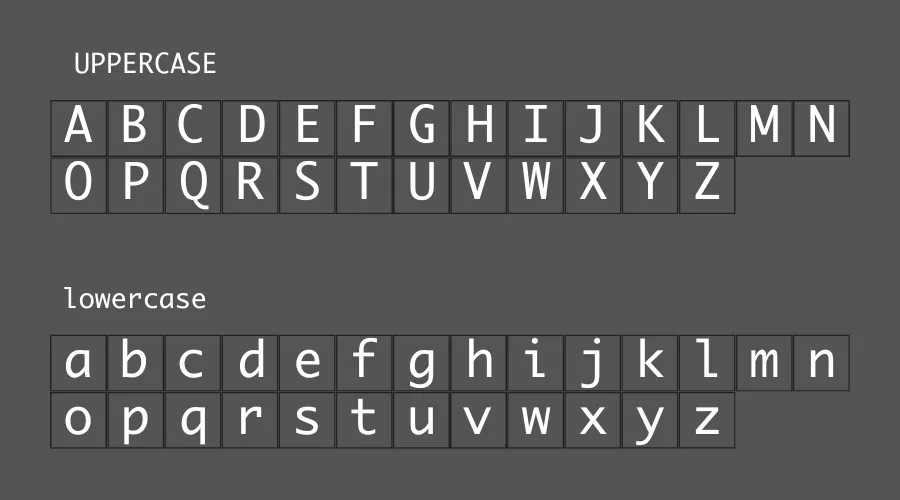
Monaco Font
About Monaco Font
Monaco Font Along with numbers, capital letters, and a few unique characters, it features more than 120 appealing characters. Its characters with rounded corners are amazing. Its free version is appropriate for designs with bold typography.
This typeface features 1024 units per em and over 220 glyphs. It has many useful properties that are ideal for fashion design. This font is excellent for use in creating brand logos and names.
It pairs beautifully with the lobster typeface, which is available in a font family as well. It features a free tool that works well for comparable graphic design needs. With this font and the Mont font, you may create a variety of original designs.